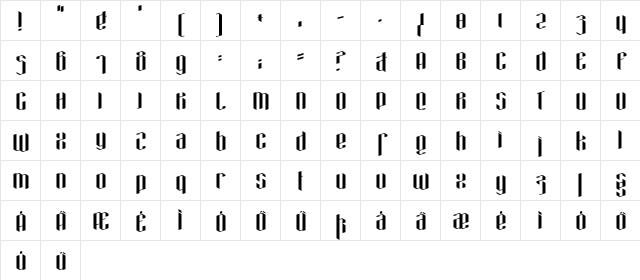
Hexa Regular Free Font
Hexa Regular
Foundry: Akos Polgardi
Design Context for Hexa
Hexa is a composed and adaptable typeface that performs quietly and consistently across a wide range of design contexts.
Who designed the Hexa Regular font?
This font was published by Akos Polgardi. Check the technical specs section for copyright and designer details.